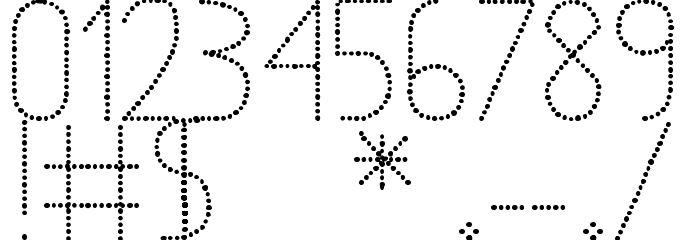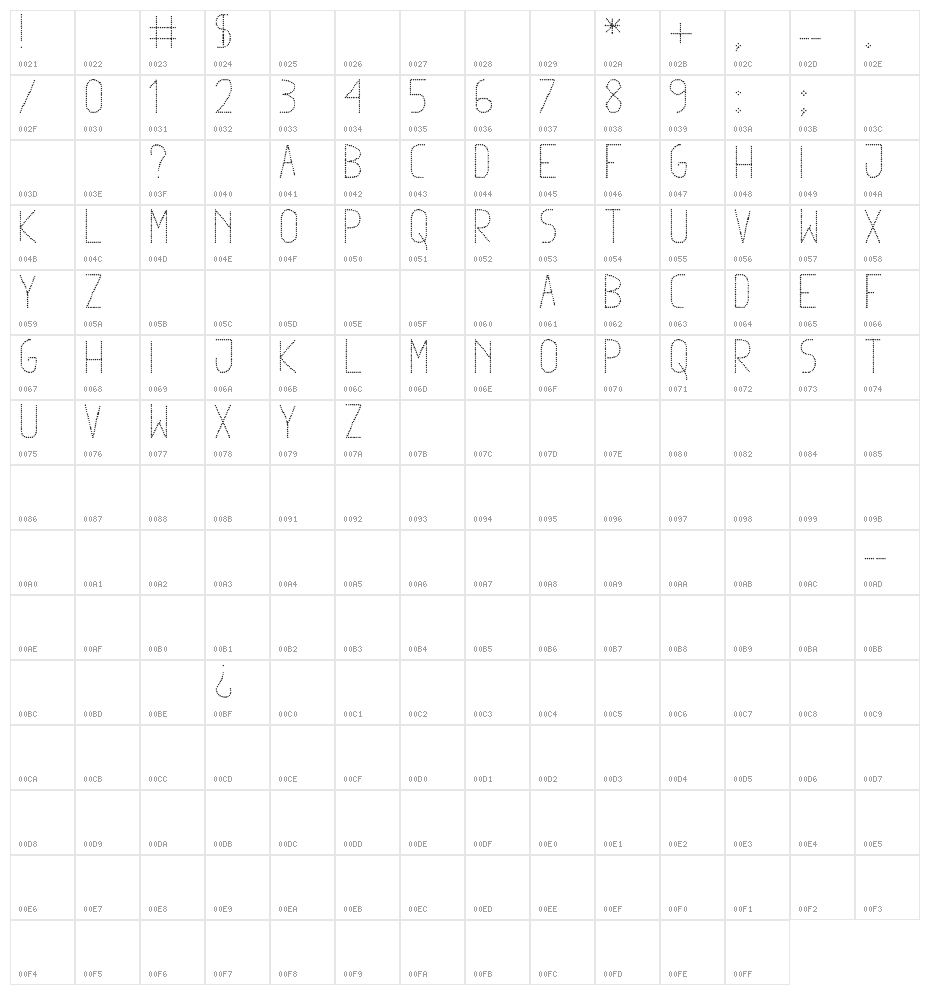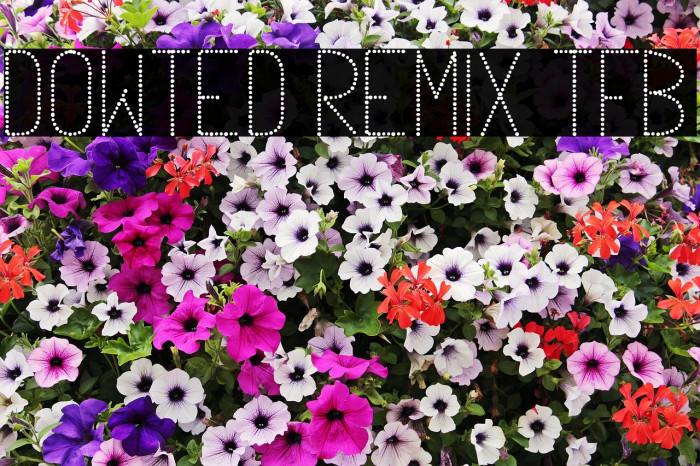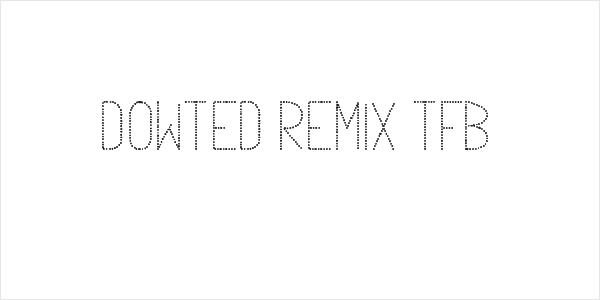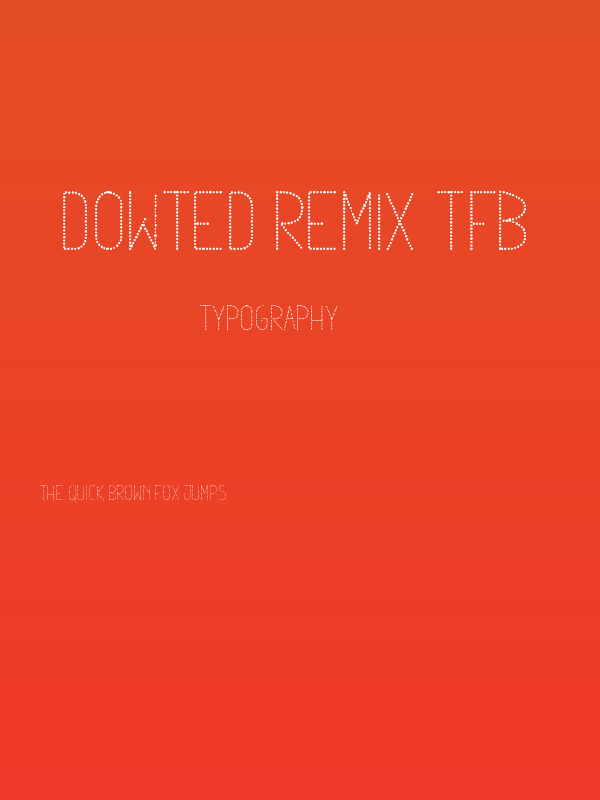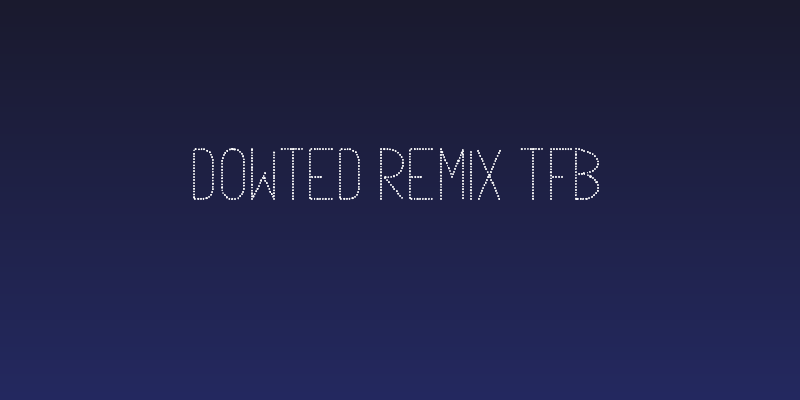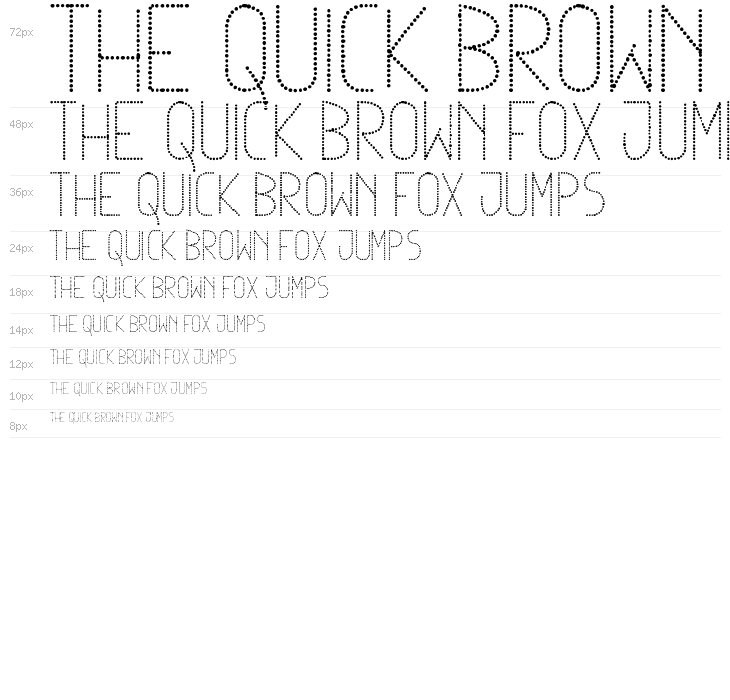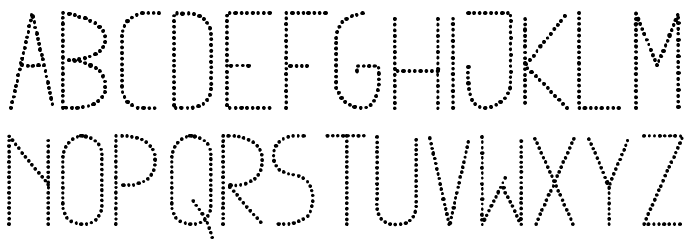
Dowted remix tfb Font
Dowted remix tfb Description
This font features a unique dotted design where each character is composed of a series of small, evenly spaced dots. The overall appearance is modern and playful, making it stand out with its distinct style. The uppercase and lowercase letters maintain a consistent height and width, creating a uniform look across the alphabet. Numbers and special characters follow the same dotted pattern, ensuring cohesion throughout the font. This design is particularly eye-catching and can be used to add a creative touch to various projects.
| Proposed Projects | Ideal for creative projects such as posters, invitations, and digital graphics where a playful and modern aesthetic is desired. |